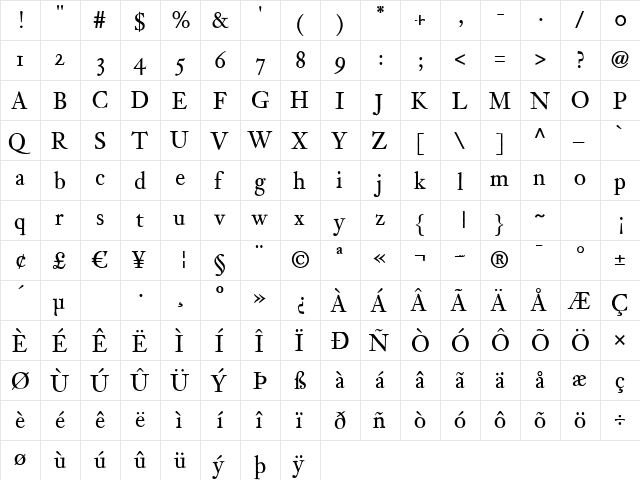
ArchetypeRegular Regular
Design Context for ArchetypeRegular Typeface
ArchetypeRegular is a composed and adaptable typeface that performs quietly and consistently across a wide range of design contexts.
Pro Tip: Use ArchetypeRegular in both headline and body roles to test its range before committing to a single application.